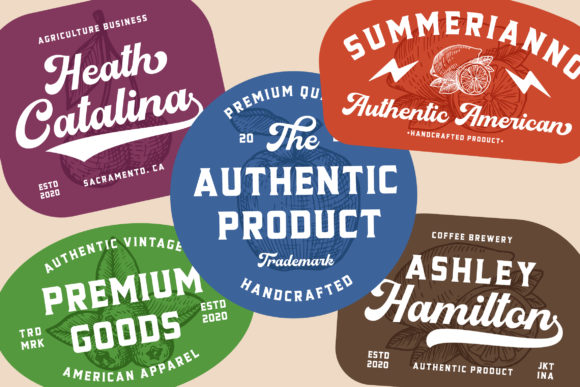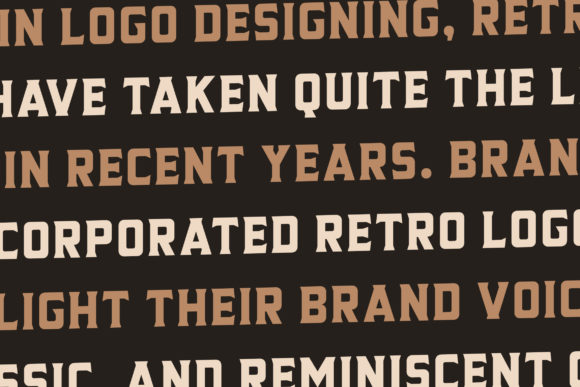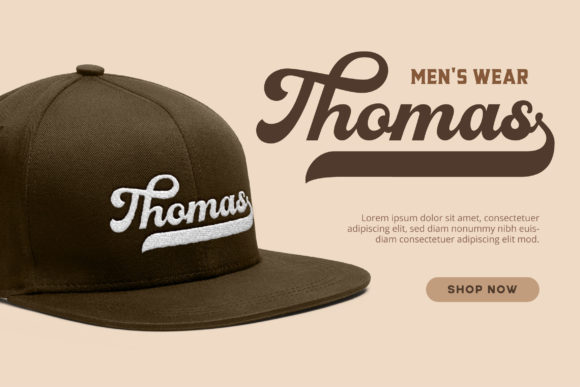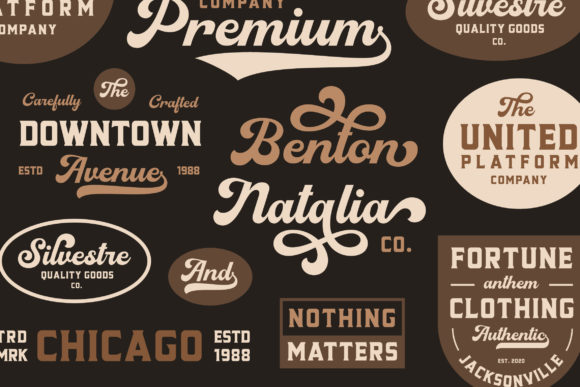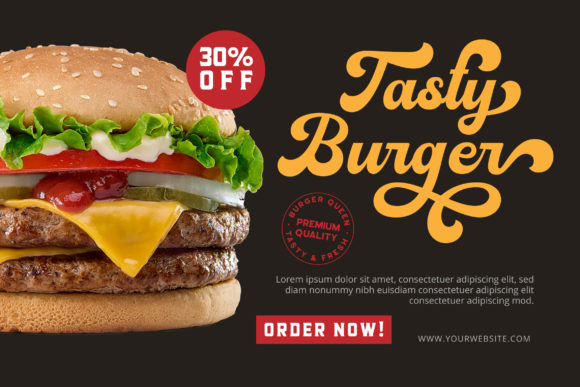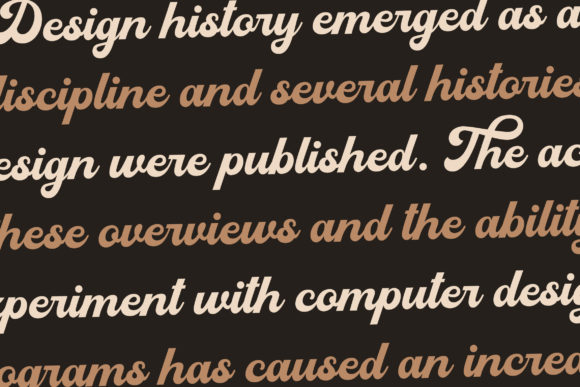
Introduction to Mexiland Font
Have you ever found yourself staring at a blank design canvas, waiting for inspiration to strike? For many designers, this moment of creative limbo can be a daunting experience. But what if you had the perfect tool to spark your imagination and elevate your project to the next level?
Enter the Mexiland Font – a stunning script font designed to add a touch of vintage flair to your headlines and logotype projects. With its strong, confident, and dynamic feel, this font is a valuable asset for any designer looking to give their creative project a high-quality, professional finish.
Whether you’re working on a personal project or collaborating with clients, the Mexiland Font is a must-have design resource that’s easy to download and integrate into your workflow. Its transparent background and versatile design make it perfect for a wide range of creative applications, from branding and advertising to editorial and packaging design.
Key Features of Mexiland Font
- High-quality design resource ideal for creative projects, offering a unique and eye-catching aesthetic.
- Features a transparent background, allowing for seamless integration with any design or image.
- Includes a wide range of characters, including uppercase and lowercase letters, numbers, and punctuation marks, making it a versatile font for various applications.
- Designed with a modern and bold style, making it perfect for headlines, titles, and other prominent text elements in creative projects.
- Available in a single weight, but its unique design makes it suitable for various font sizes, from small to large, without losing its impact.
Honest Review: Mexiland Font
I recently had the chance to work with the Mexiland Font, and I have to say, I was quite impressed. This free download is a great addition to any designer’s toolkit, especially when working on a creative project that requires a high-quality, fun, and vibrant font.
- ✨ Unique and playful style that adds a touch of Mexican flair to any design
- ✨ High-quality glyphs that are clear and easy to read
- ✨ Transparent background, making it easy to layer and combine with other design elements
- ⚠️ Limited character set, which may not be suitable for longer texts or formal designs
Overall, I think the Mexiland Font is a great resource for designers looking to add some personality and flair to their designs. While it may not be suitable for every project, it’s definitely worth considering for those creative projects that need a little extra somethin’ somethin’.
The Mexiland Font is a high-quality, free download that can be used for any creative project. It features a transparent background, making it perfect for designs that require a clean and minimalist aesthetic.
Tips for Getting the Most Out of Mexiland Font
For optimal results, use the Mexiland Font in conjunction with other high-quality design resources. Experiment with different font sizes, colors, and styles to create a unique and eye-catching design.
Common Use Cases for Mexiland Font
The Mexiland Font is perfect for:
– Social media graphics
– Brochures and flyers
– Business cards and letterheads
– Infographics and presentations
Does the Mexiland Font have a transparent background?
Yes, the Mexiland Font features a transparent background, making it ideal for use on various design elements, such as logos, icons, or graphics. This allows for greater flexibility and customization in your creative project. Simply apply the font to your design element, and you can easily adjust the background color or texture to suit your design requirements.